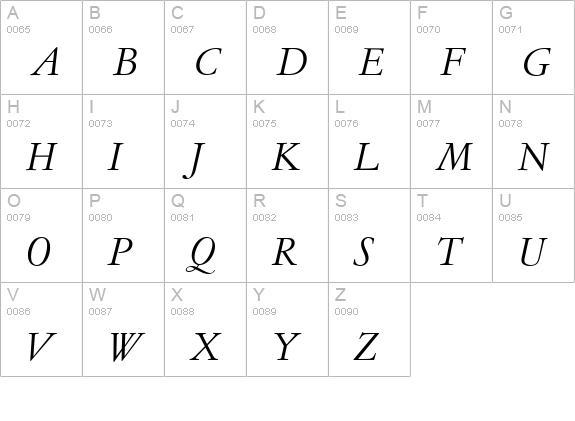
GaramondNo4CyrTCYLig Italic is a distinctive, italic variant in the GaramondNo4CyrTCYLig typeface family \xE2\x80\x94 well suited to design and typography projects.
GaramondNo4CyrTCYLig Italic font is a timeless and elegant typeface that exudes sophistication and charm. Its delicate curves and graceful slant make it perfect for adding a touch of class to any design project. The italic style adds a sense of flair and drama, making it ideal for titles, headings, and other prominent text elements. What sets GaramondNo4CyrTCYLig Italic font apart is that it is available for free download at FontsMarket.com. This means that you can easily access this exquisite font without any cost, making it a valuable addition to your font collection. Whether you're working on a personal project or a professional design, GaramondNo4CyrTCYLig Italic font is sure to elevate the look and feel of your work. Don't miss out on this opportunity to enhance your designs with this beautiful and versatile typeface.